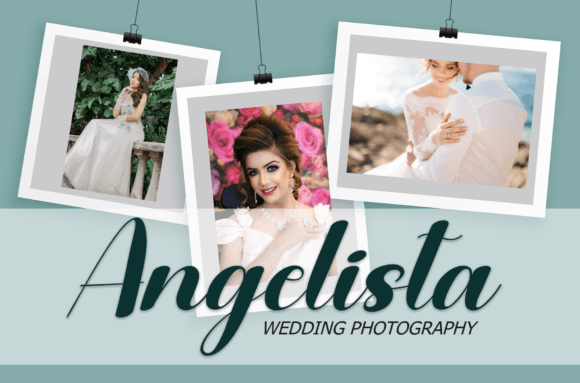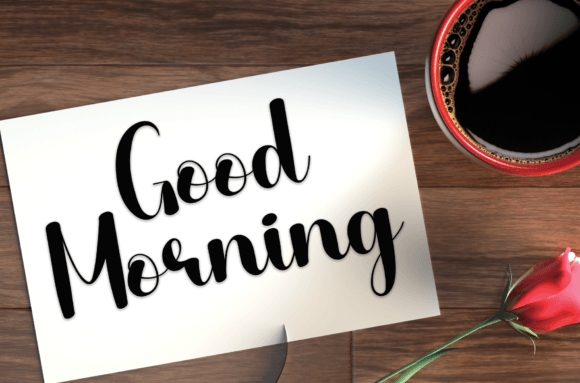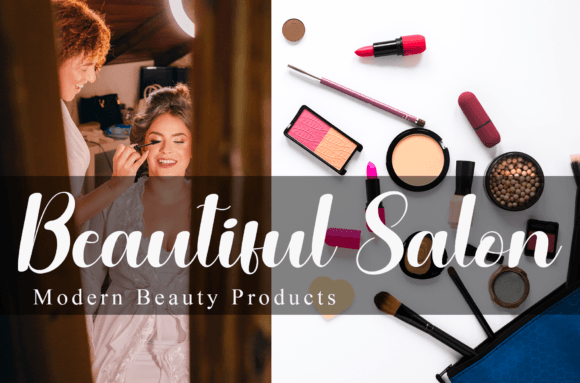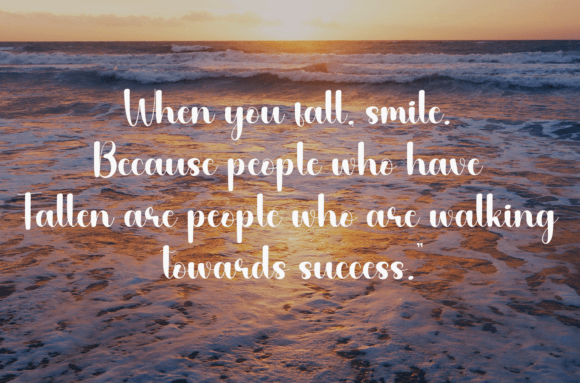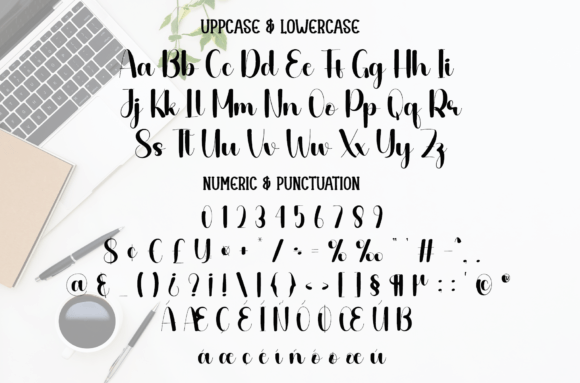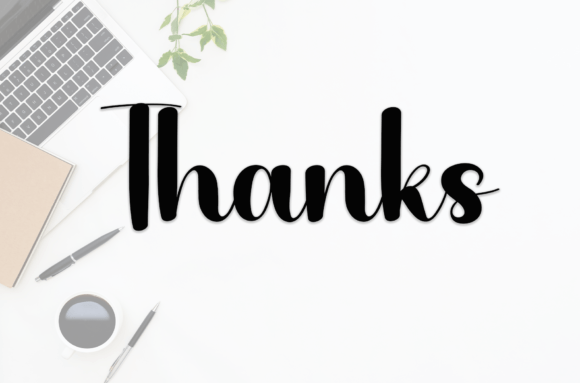
Introducing Feedback Font: The Sweet and Friendly Handwritten Font for Your Design Needs
Are you a designer or crafter looking for a font that can add a personal touch to your creations? Look no further than Feedback Font, a sweet and friendly handwritten font that’s perfect for a variety of design projects. In this article, we’ll take a closer look at Feedback Font, its features, and how you can use it to elevate your designs.
What is Feedback Font?
Feedback Font is a beautifully crafted handwritten font that’s fresh, neat, and full of character. Its sweet and friendly style makes it ideal for designs that require a personal touch, such as wedding invitations, greeting cards, and other paper crafts. The font’s unique and elegant feel will add a touch of sophistication to any design, making it perfect for crafters and designers who want to create something special.
Key Features of Feedback Font
- Handwritten style: Feedback Font has a beautiful handwritten style that’s perfect for adding a personal touch to your designs.
- Fresh and neat: The font is clean and easy to read, making it perfect for body text and headings.
- Fun and playful: Feedback Font has a playful feel that’s perfect for designs that require a touch of whimsy and personality.
- Versatile: The font is versatile and can be used for a variety of design projects, from wedding invitations to social media graphics.
Uses for Feedback Font
Feedback Font is a versatile font that can be used for a wide range of design projects, including:
- Wedding invitations: The font’s elegant and sophisticated feel makes it perfect for wedding invitations, save-the-date cards, and other wedding-related designs.
- Greeting cards: Feedback Font is ideal for creating greeting cards for special occasions, such as birthdays, holidays, and anniversaries.
- Paper crafts: The font is perfect for paper crafts, such as scrapbooking, journaling, and card making.
- Social media graphics: Feedback Font can be used to create social media graphics, such as Facebook posts, Instagram stories, and Pinterest pins.
Tips for Using Feedback Font
Here are some tips for using Feedback Font in your designs:
- Pair with other fonts: Feedback Font can be paired with other fonts to create a unique and interesting look. Try pairing it with a bold font for headings and a clean font for body text.
- Experiment with colors: The font looks great in a variety of colors, from bright and bold to soft and pastel. Experiment with different colors to find the one that works best for your design.
- Use for headings and body text: Feedback Font can be used for both headings and body text. Use it for headings to add a touch of personality and for body text to create a clean and easy-to-read design.
Feedback Font is a beautiful and versatile handwritten font that’s perfect for designers and crafters who want to add a personal touch to their creations. Its sweet and friendly style makes it ideal for a variety of design projects, from wedding invitations to social media graphics. With its fresh and neat feel, Feedback Font is sure to become a favorite in your font collection.